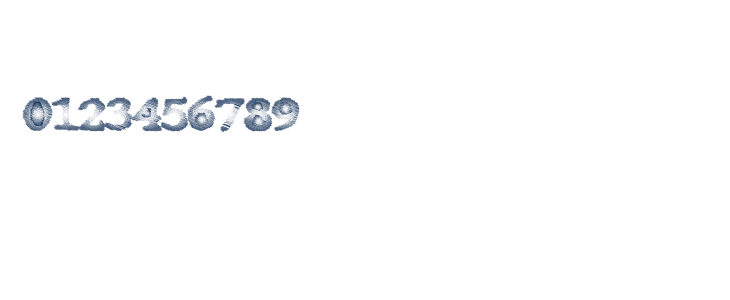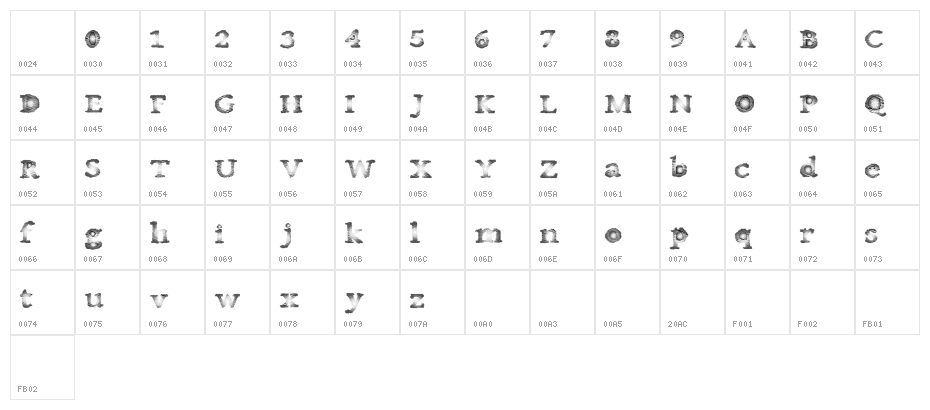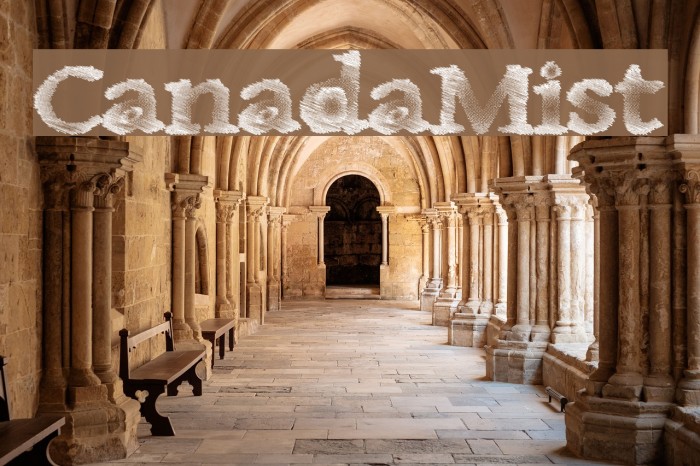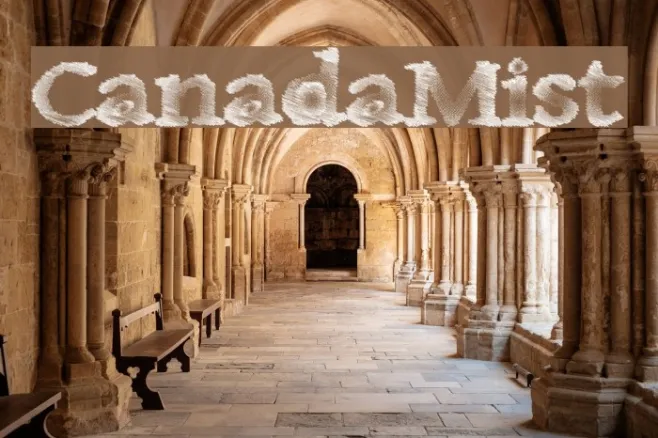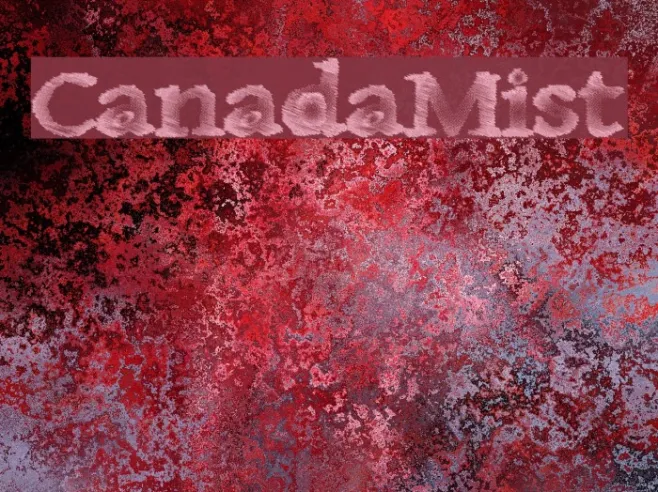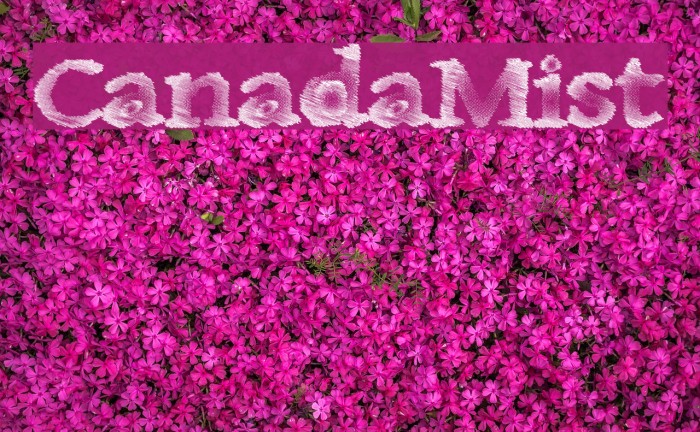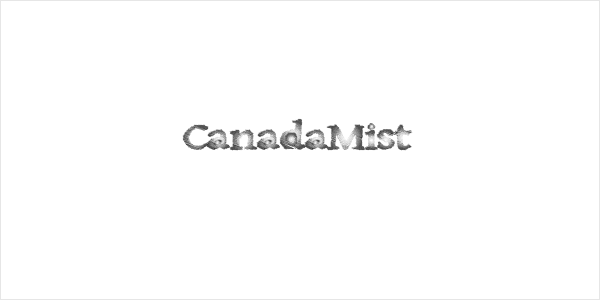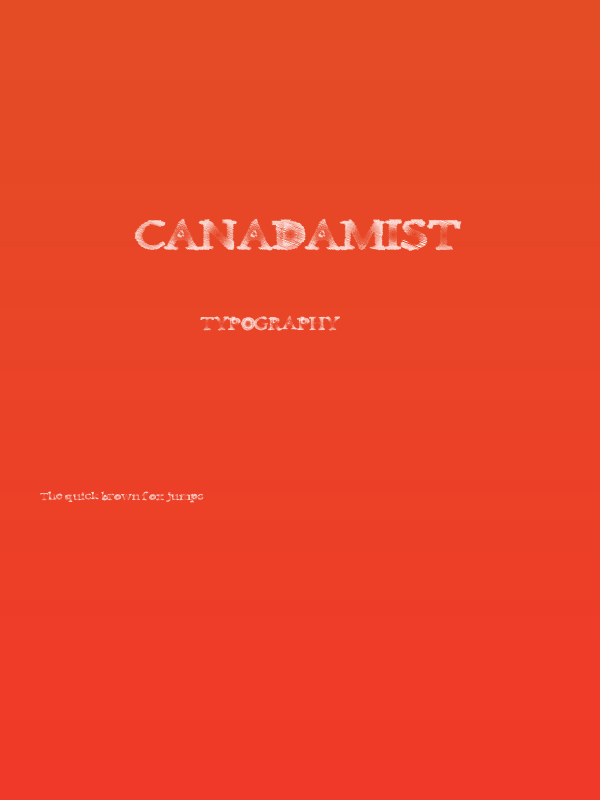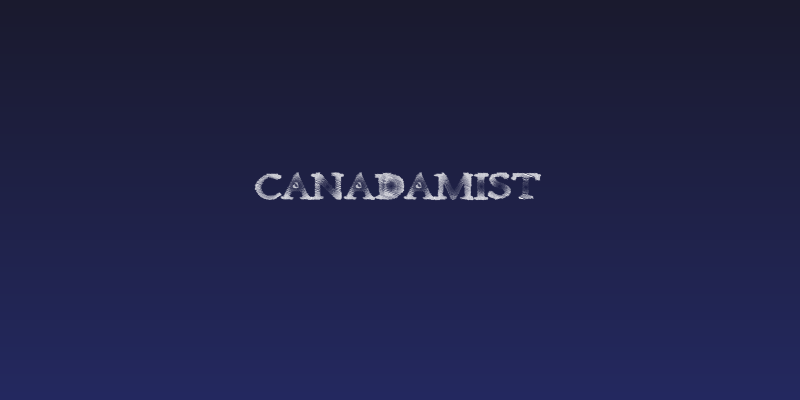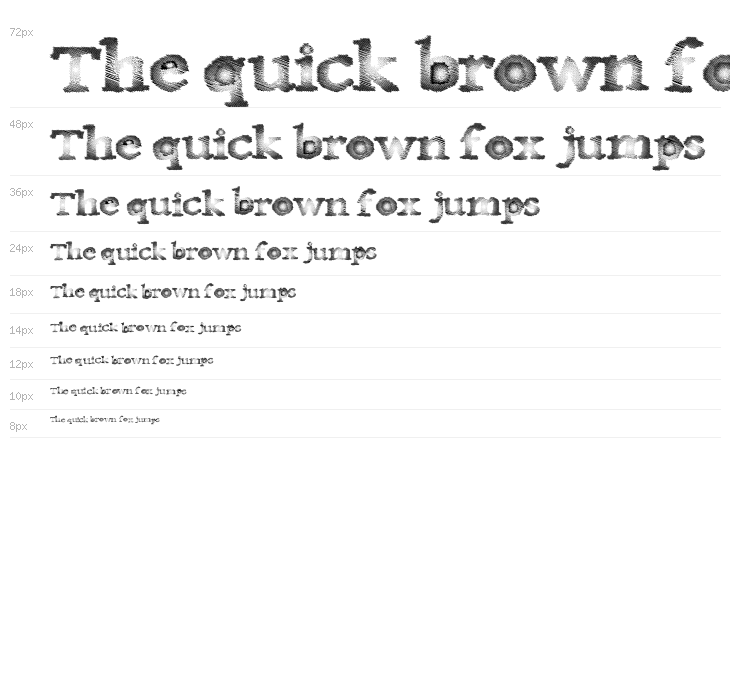
CanadaMist Font
CanadaMist Description
This font features a unique, textured appearance reminiscent of hand-drawn or sketched designs. Each character is filled with a cross-hatch pattern, giving it a distinctive, artistic look. The letters are bold and have a slightly rough edge, which adds to the handcrafted feel. The uppercase and lowercase letters maintain a consistent style, with the uppercase being slightly more pronounced. Numbers and special characters follow the same textured pattern, ensuring uniformity across all glyphs. This font stands out with its creative and unconventional style, making it suitable for projects that require a touch of artistry and individuality.
| Overall Style | Artistic, Handcrafted |
| Use Case | Logos, Posters, Creative Designs |
| Proposed Projects | Ideal for artistic projects, branding, posters, and creative designs that require a unique and handcrafted look. |